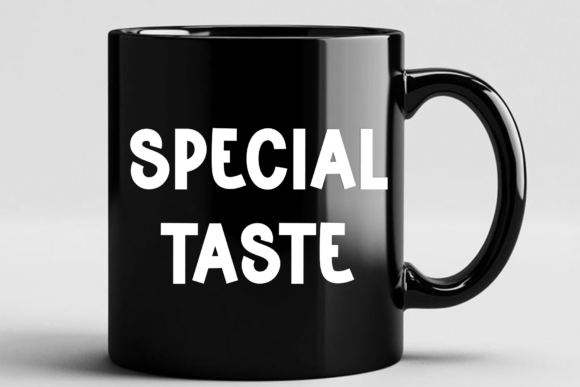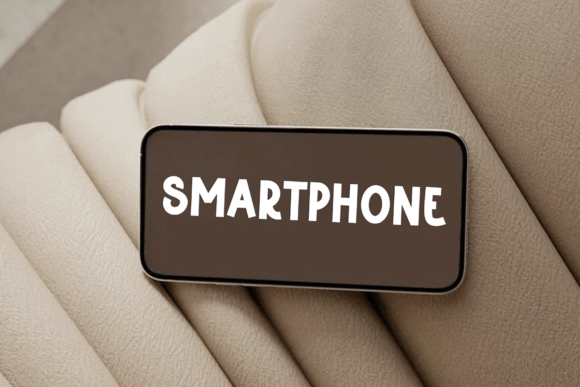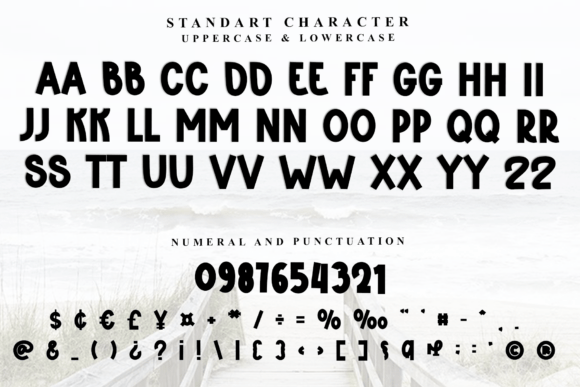
Introduction to Smart Varcity Font
As designers, we’ve all been there – staring at a blank canvas, waiting for that perfect spark to ignite our creative project. It’s moments like these that make us appreciate the little things, like a beautifully crafted font that sets the tone for our entire design. And for those looking to add a touch of whimsy and personality to their work, the Smart Varcity Font is an absolute treasure trove.
With its sweet and friendly handwritten style, the Smart Varcity Font is the ultimate design resource for creatives who crave a unique look. Whether you’re working on a digital project with a transparent background or a print design that demands high quality, this font is sure to elevate your work to the next level. And the best part? It’s available for free download, making it a valuable addition to any designer’s toolkit.
Key Features of Smart Varcity Font
- High-quality design resource with a unique, modern aesthetic, perfect for creative projects.
- Features a transparent background, allowing for effortless layering and customization in your design.
- Includes a comprehensive character set, covering a wide range of languages and special characters.
- Supports resolutions up to 300 DPI, ensuring crisp and clear typography in high-resolution designs.
- Designed to be highly legible and versatile, suitable for use in a variety of contexts, from digital interfaces to print materials.
- Includes a range of font sizes, from 8pt to 72pt, making it easy to scale and customize for different design applications.
Honest Review: Smart Varcity Font
I recently stumbled upon the Smart Varcity Font, and I must say it’s been a game-changer for my design projects. This font is a high-quality design resource that’s perfect for creatives looking to add some flair to their work.
- ✨ The font’s sleek, modern design makes it ideal for futuristic or sci-fi themed projects.
- ✨ The transparent background feature allows for seamless integration with other design elements.
- ✨ The high-quality design ensures that the font looks great on various devices and screen sizes.
However, I do have a few limitations to mention:
- ⚠️ The font may not be suitable for traditional or conservative design projects, as it’s quite bold and modern.
- ⚠️ Some users may experience compatibility issues with older software or operating systems.
Overall, I’m thoroughly impressed with the Smart Varcity Font. It’s a fantastic addition to any designer’s toolkit, and I highly recommend it for creative projects that require a touch of modernity and sophistication.
Getting the Most Out of Smart Varcity Font
To get the most out of this font, experiment with different font sizes, colors, and combinations to achieve a unique look for your creative project. Additionally, use the font with a transparent background to add an extra layer of depth and visual interest.
Smart Varcity Font is perfect for a variety of creative projects, including social media graphics, presentations, logos, and more. Its high-quality design and transparent background make it an ideal choice for designers looking to add a professional touch to their work.
Can I modify or customize the Smart Varcity Font for my specific design needs?
While the Smart Varcity Font is a high-quality design resource, it’s not intended for extensive customization. However, you can use font editing software to make minor adjustments to the font’s appearance, such as changing the font size or color. For more complex modifications, we recommend using a professional font editing tool or consulting with a font designer.